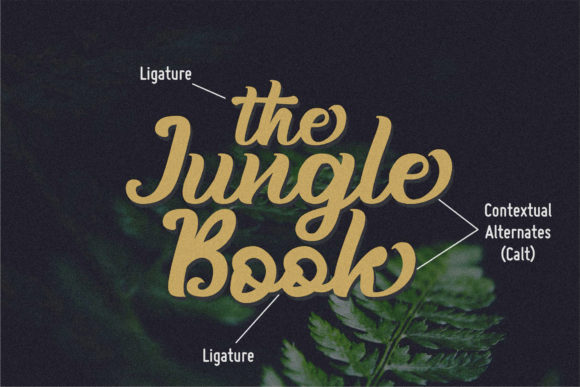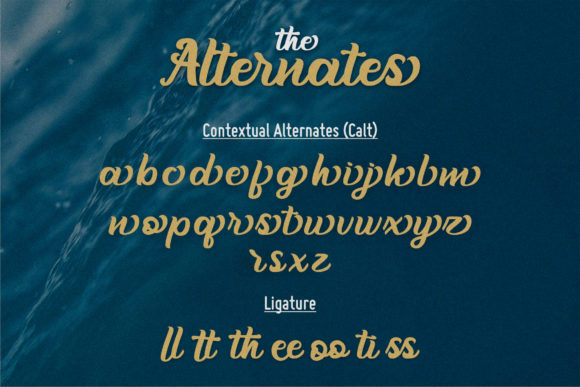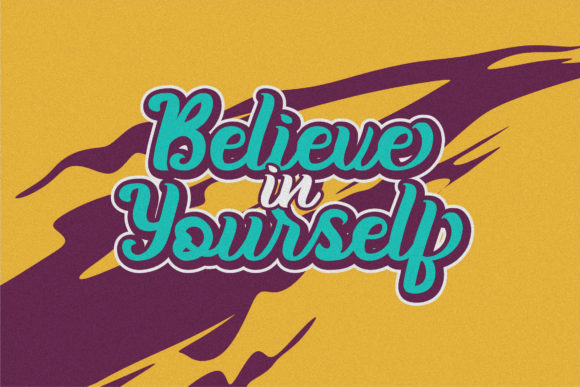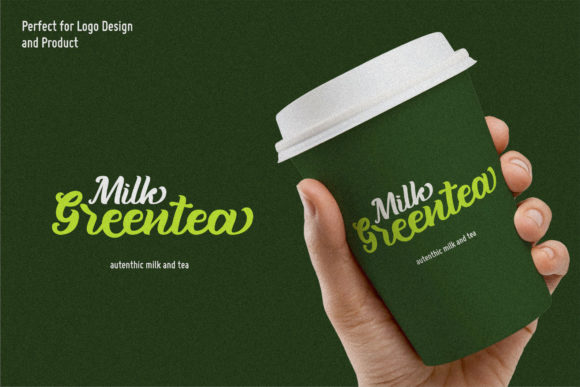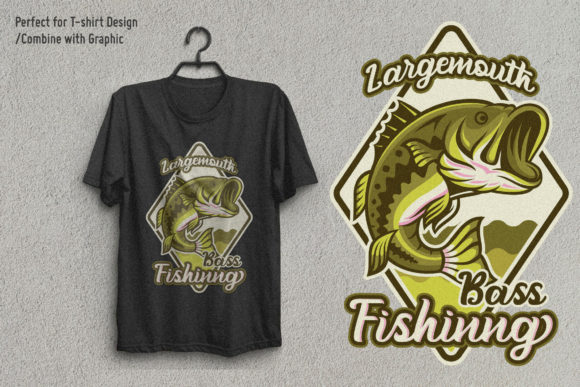
Introducing Berthany Font: A Timeless Handwritten Treasure
Are you on the hunt for a font that exudes vintage charm and organic elegance? Look no further than Berthany Font, a stunning handwritten font that’s sure to inspire your creative projects. With its unique, free-flowing style, Berthany is perfect for designers, crafters, and anyone looking to add a touch of personality to their work.
The Story Behind Berthany Font
Berthany Font is a carefully crafted typeface that draws inspiration from traditional handwriting. Its organic feel and vintage charm make it an excellent choice for a wide range of applications, from branding and packaging to invitations and crafts. The font’s creator aimed to capture the essence of handwritten script, infusing Berthany with a sense of warmth and personality that’s hard to find in digital fonts.
What Makes Berthany Font So Special?
So, what sets Berthany Font apart from other handwritten fonts on the market? Here are just a few of its standout features:
- Unique Character Set: Berthany Font boasts an extensive character set, complete with uppercase and lowercase letters, numbers, and punctuation marks. This ensures that you have everything you need to create beautiful, cohesive text.
- Organic Feel: The font’s hand-drawn nature gives it a distinctly organic feel that’s perfect for creating a sense of warmth and approachability.
- Vintage Charm: Berthany’s vintage inspiration makes it an excellent choice for projects that require a touch of classic elegance.
- Highly Versatile: Whether you’re working on a branding project, crafting a handmade card, or designing a website, Berthany Font is the perfect choice.
Using Berthany Font in Your Projects
Berthany Font is incredibly versatile, making it suitable for a wide range of applications. Here are a few ideas to get you started:
- Branding and Packaging: Use Berthany Font to create eye-catching logos, labels, and packaging that stands out from the crowd.
- Invitations and Stationery: Add a touch of elegance to your invitations, greeting cards, and stationery with Berthany’s beautiful script.
- Crafts and DIY Projects: Berthany Font is perfect for crafters, quilters, and DIY enthusiasts looking to add a personal touch to their projects.
- Web Design: Use Berthany Font to create stunning website headers, titles, and other design elements that showcase your brand’s personality.
Tips for Getting the Most Out of Berthany Font
To make the most of Berthany Font, here are a few expert tips:
- Experiment with Sizes and Styles: Don’t be afraid to try out different font sizes and styles to find the perfect combination for your project.
- Pair with Other Fonts: Berthany Font pairs beautifully with other fonts, so don’t be afraid to get creative with font combinations.
- Use for Headings and Titles: Berthany Font is perfect for headings and titles, where its unique character and vintage charm can really shine.
In conclusion, Berthany Font is a truly unique and stunning handwritten font that’s sure to inspire your creative projects. With its organic feel, vintage charm, and highly versatile nature, Berthany is the perfect choice for designers, crafters, and anyone looking to add a touch of personality to their work. So why wait? Get inspired by Berthany Font today and take your designs to the next level!